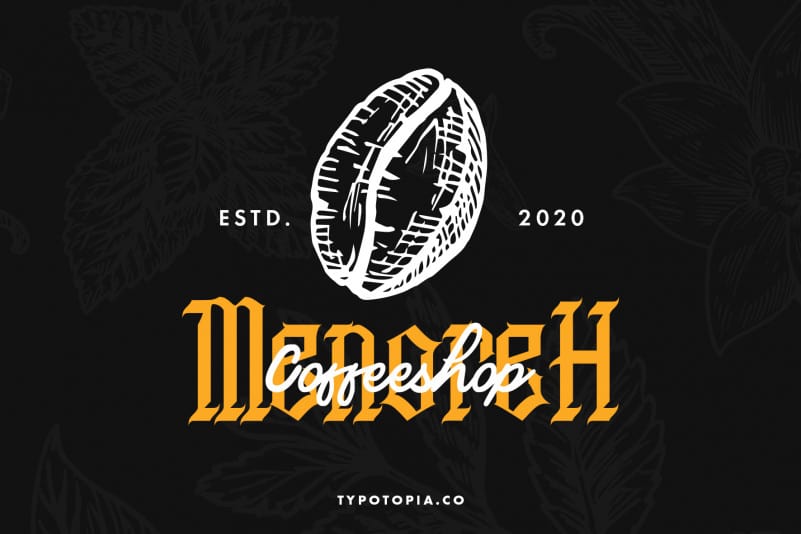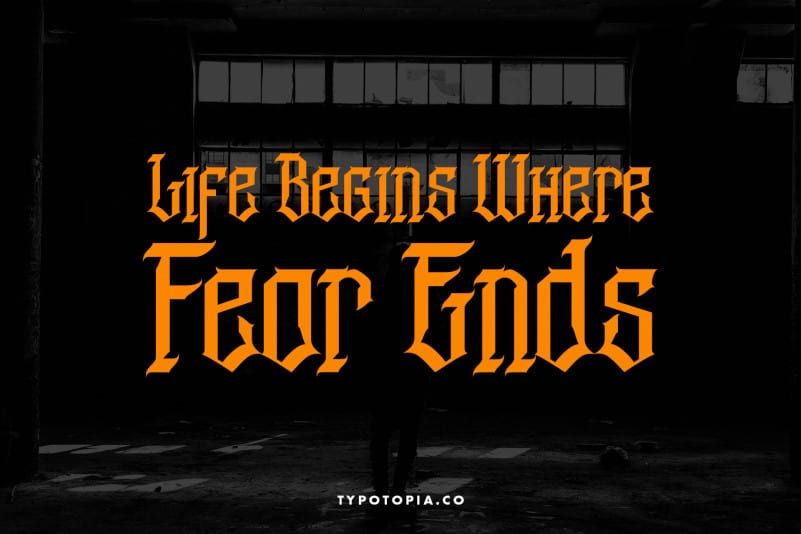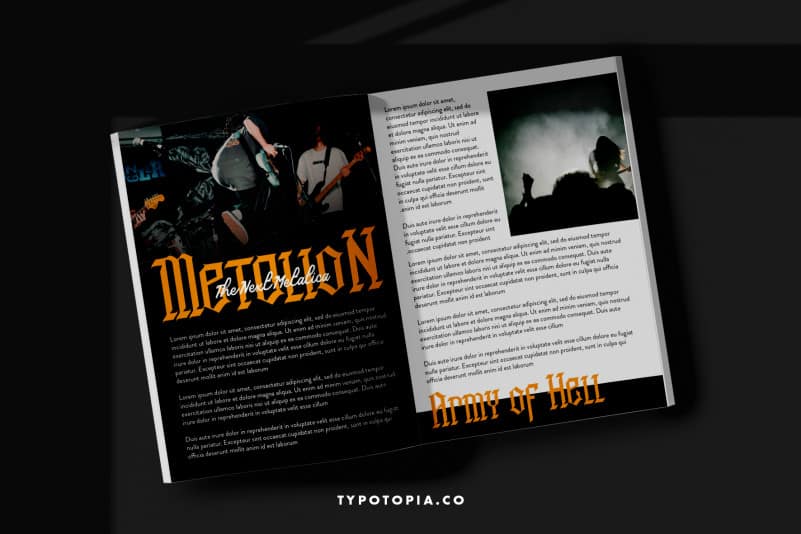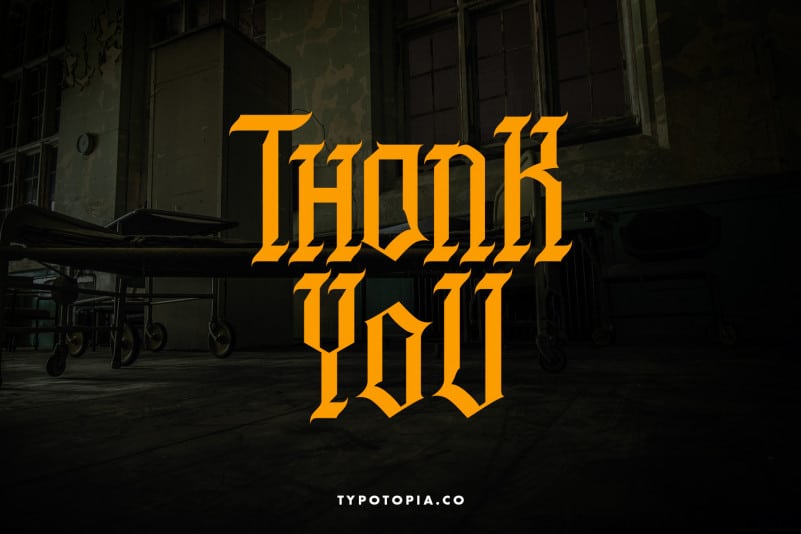
Arthur Blackletter Font
Introducing, Arthur Blackletter Font a unique Blackletter Font for your Design!!
Arthur Blackletter Font is a unique Blackletter Font for your Design that is absolutely great for your next creative project such as logos, printed quotes, invitations, cards, product packaging, headers, Logotype, Letterhead, Poster, Apparel Design, Label, and etc.
This Versatile Font includes also support a Multilingual Characters. Making this Font a Swiss Army knife in your Font Library. It’s extremely fun to use as each word can be transformed to your liking.